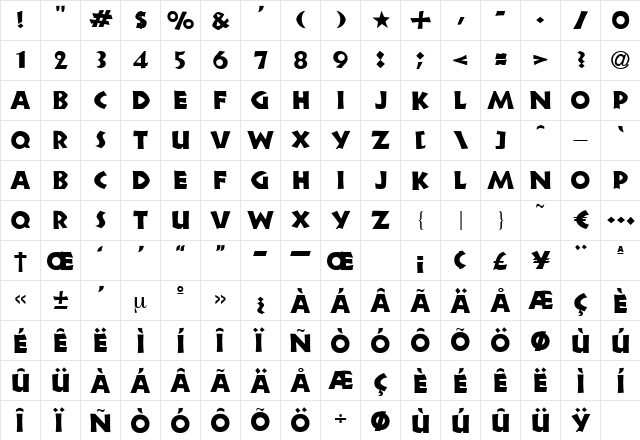
Sinfonie Regular
Design Context for Sinfonie Typeface
Sinfonie offers clean, dependable letterforms without strong stylistic allegiance, making it a practical choice for designers who need flexibility.
Pro Tip: Pair Sinfonie with a font of contrasting weight or personality to build a more expressive typographic hierarchy.